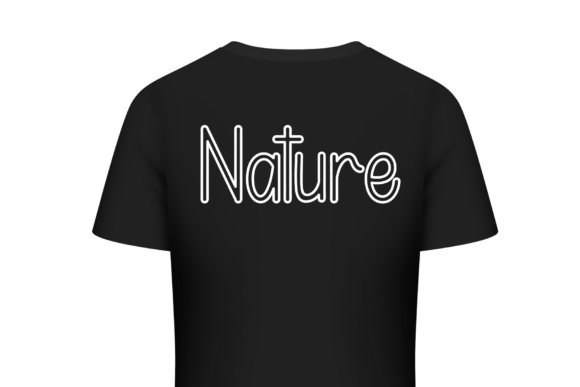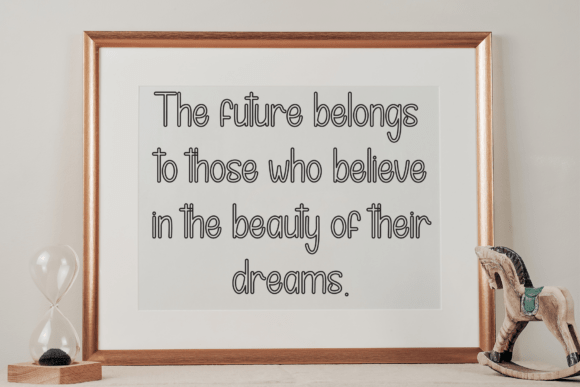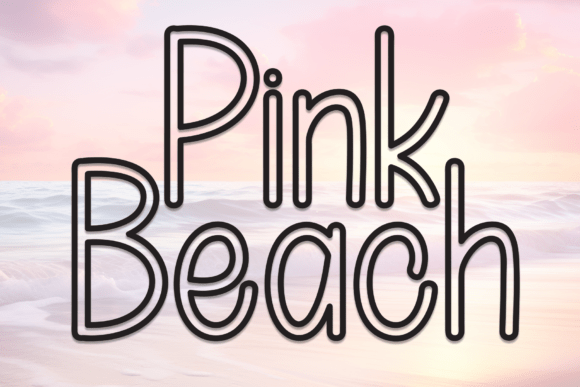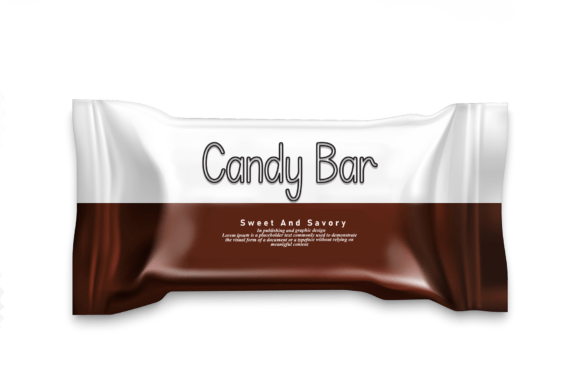
Pink Beach Font: A Playful Display Font for Social Media Design
About the Pink Beach Font
Get ready to be inspired by Pink Beach Font, a fresh and dynamic typeface for modern creators. Pink Beach is a casual and neat display font that radiates a fresh, friendly vibe. With clean lines and a relaxed structure, it’s perfect for packaging, posters, and social media graphics. The approachable design adds charm and clarity to projects while maintaining a polished appearance.
Pink Beach’s friendly personality makes it ideal for projects needing a touch of casual sophistication. It excels in headlines, short-form text on packaging, and social media posts where its approachability shines. Avoid using it for lengthy body copy or UI elements; its legibility suffers in smaller sizes or continuous text.
Pair Pink Beach with a clean sans-serif like Open Sans for a balanced contrast, or a playful script font like Great Vibes for a more whimsical feel. For a modern edge, a geometric sans-serif such as Futura would create a striking juxtaposition.
The overall mood is optimistic and approachable, making it perfect for brands focused on lifestyle, food, beauty, or children’s products. Its casual yet refined style ensures readability without sacrificing charm.